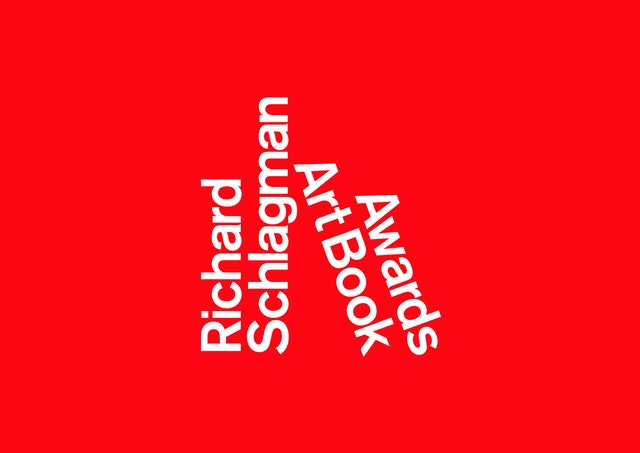
Bold typography is a winner in the inaugural Richard Schlagman Art Book Awards
A new initiative for 2019 celebrating excellence in arts publishing the Richard Schlagman Art Book Awards is an innovative collaboration between Whitechapel Gallery and the Authors’ Club celebrating the best in international arts publishing in the English language.
Named after Richard Schlagman, whose vision and drive transformed Phaidon Press to become a world-class publisher and revolutionized modern and contemporary art publishing, this new initiative, newly launched in January 2019, “highlights the fertile relationship between the art world and publishing, recognizing a diverse genre that encompasses art, architecture, and design."
The Awards celebrate “the importance of books in the dissemination of knowledge and learning about art around the world, addressing a vital need to champion the visual arts publishing sector” and the innovation and verve of contemporary graphic design and print production.
Challenged to create a new visual identity for the awards, Pentagram “produced a clear and instantly recognizable design. Led by a bold, typographical motif it is a brand that is both flexible and elegant in its simplicity. Recalling and inspired by the image of book spines as they sit upon a bookshelf, this subtle approach also conveys a timeless quality.”
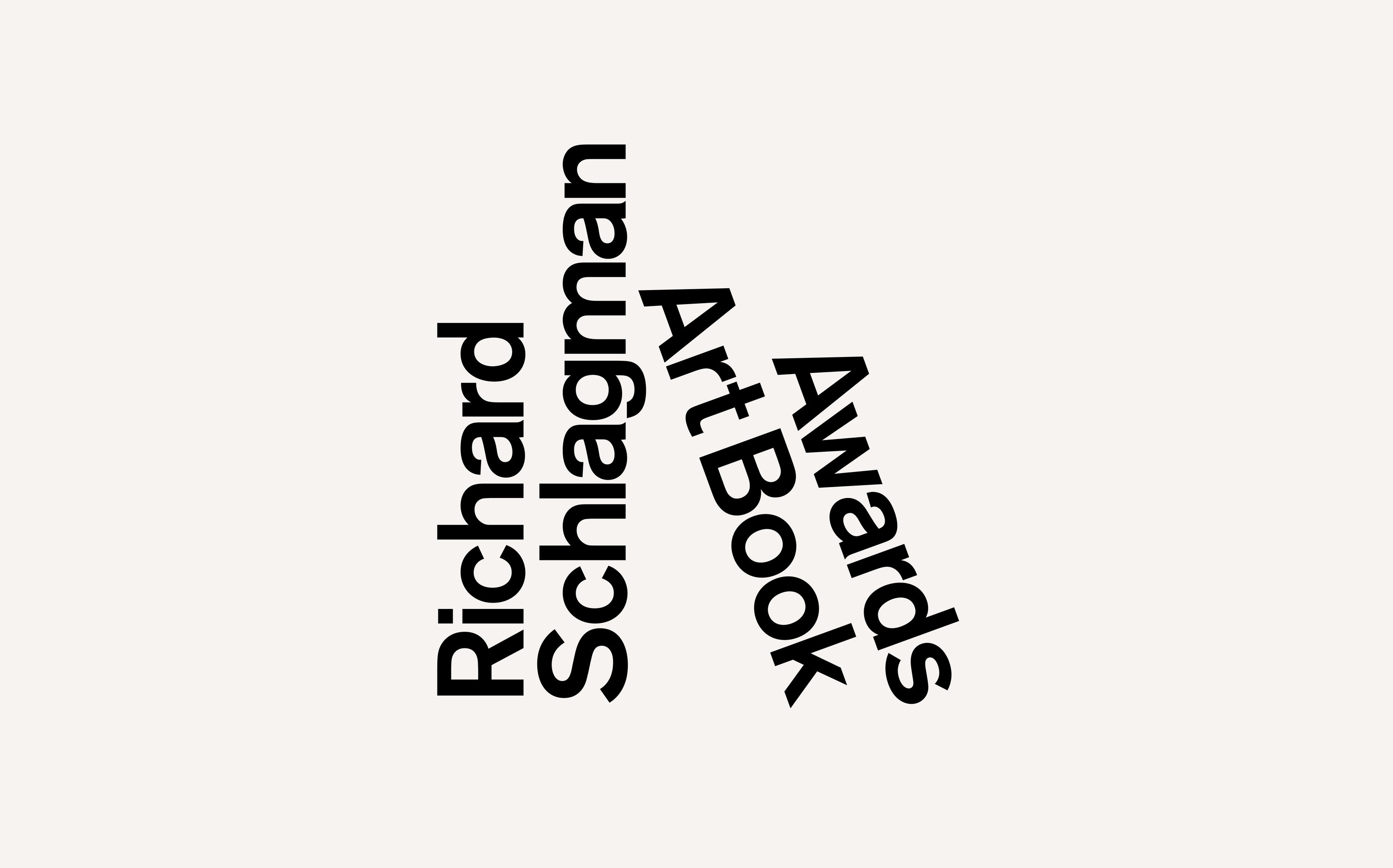
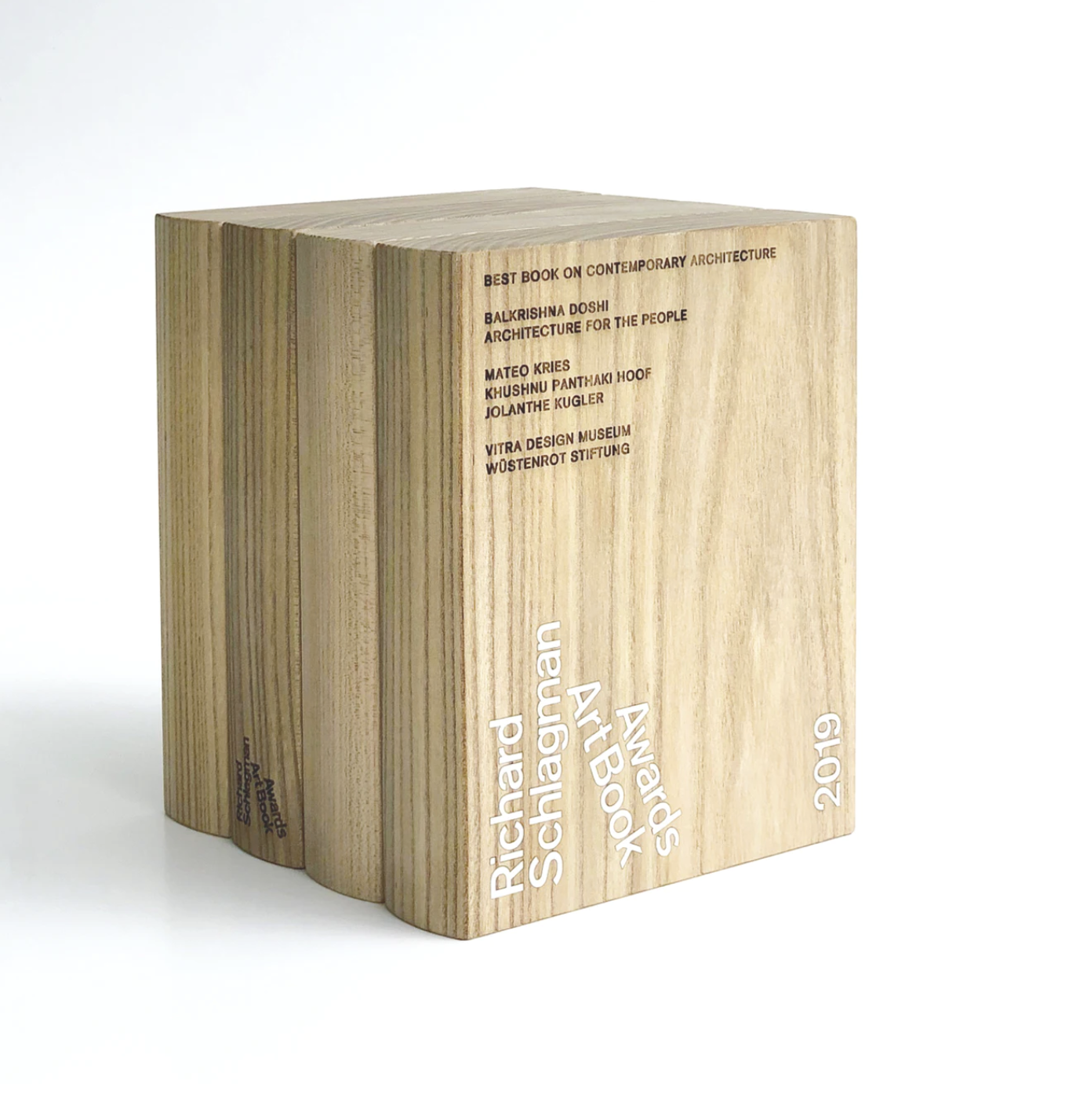
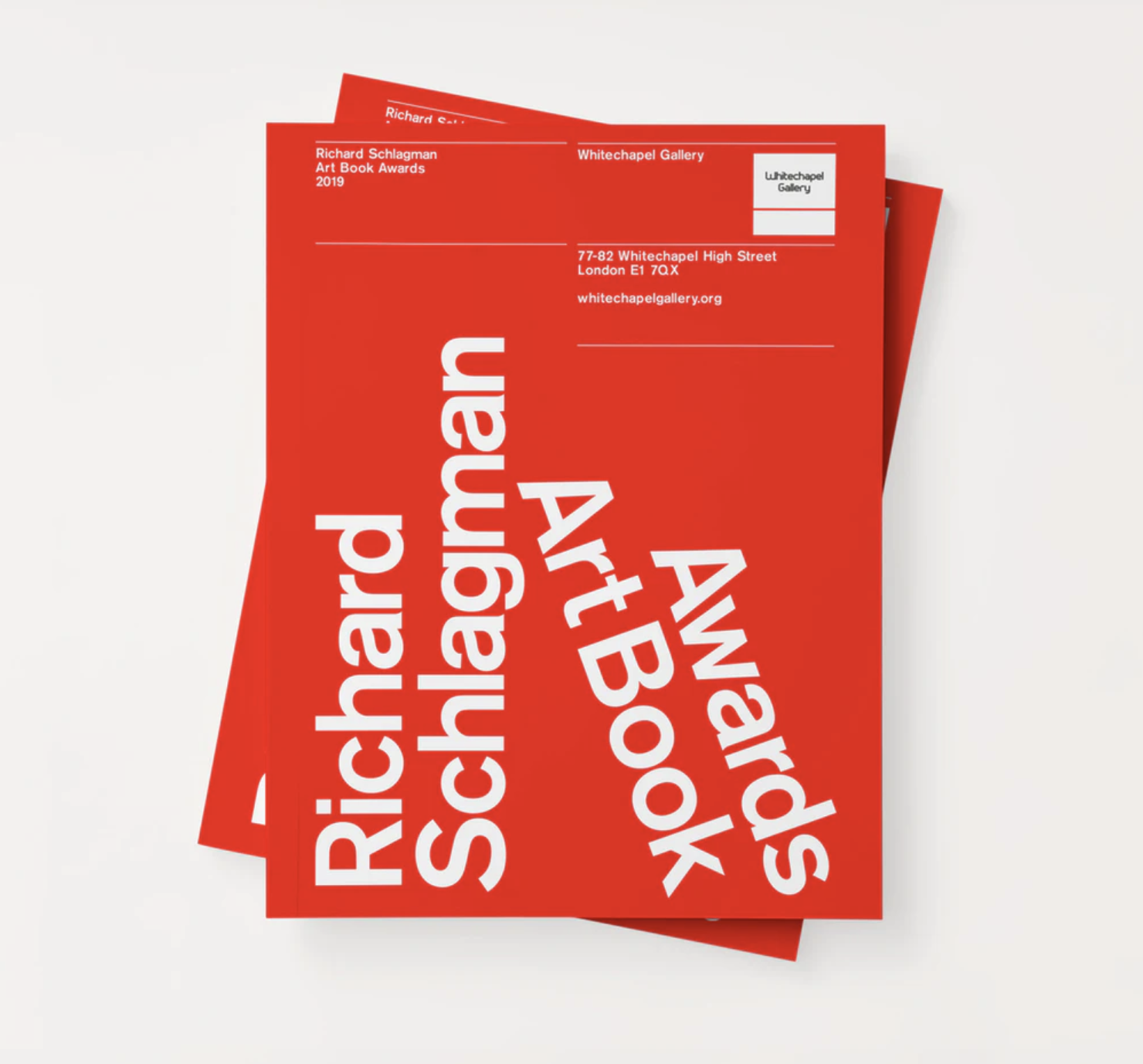
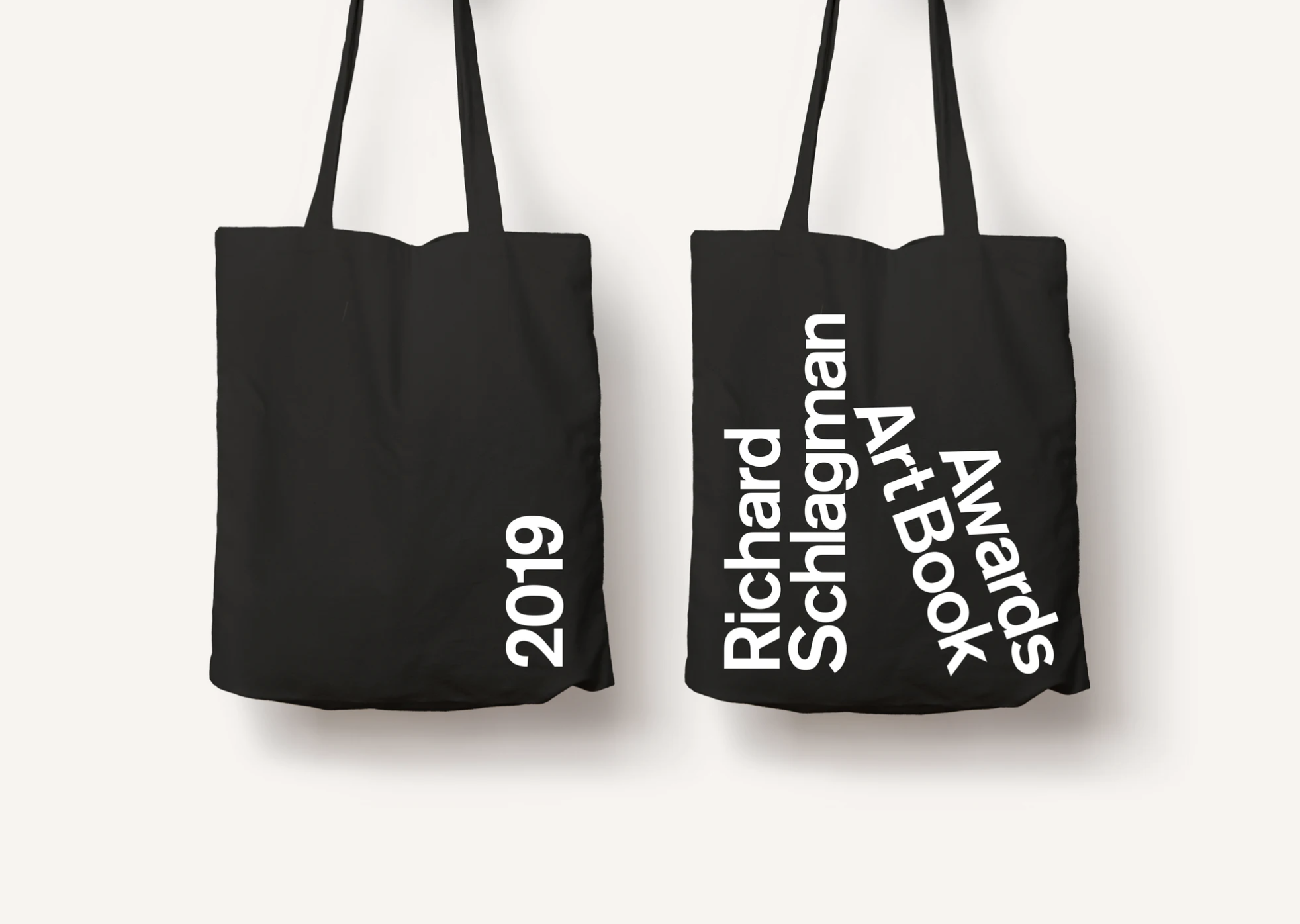
“Encompassing easily-recalled elements from the art, design and printing worlds, Pentagram’s new identity can stretch across the diverse genres recognized by the awards yet is malleable enough to fit alongside and complement the Whitechapel Gallery’s longstanding brand identity. For the design of the trophy, Pentagram collaborated with the Swedish industrial designer Björn Dahlström.”
Last but not least these are the winners for each category -plus the overall winner- which were announced earlier this week.